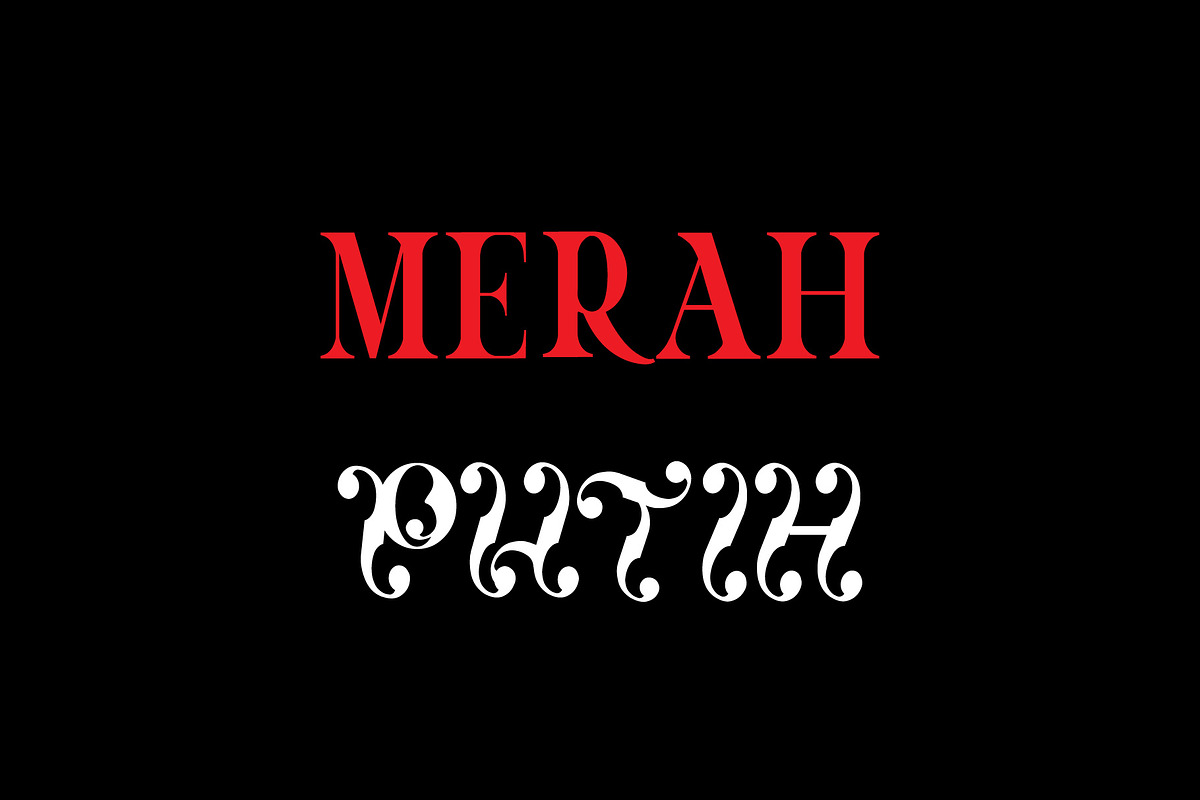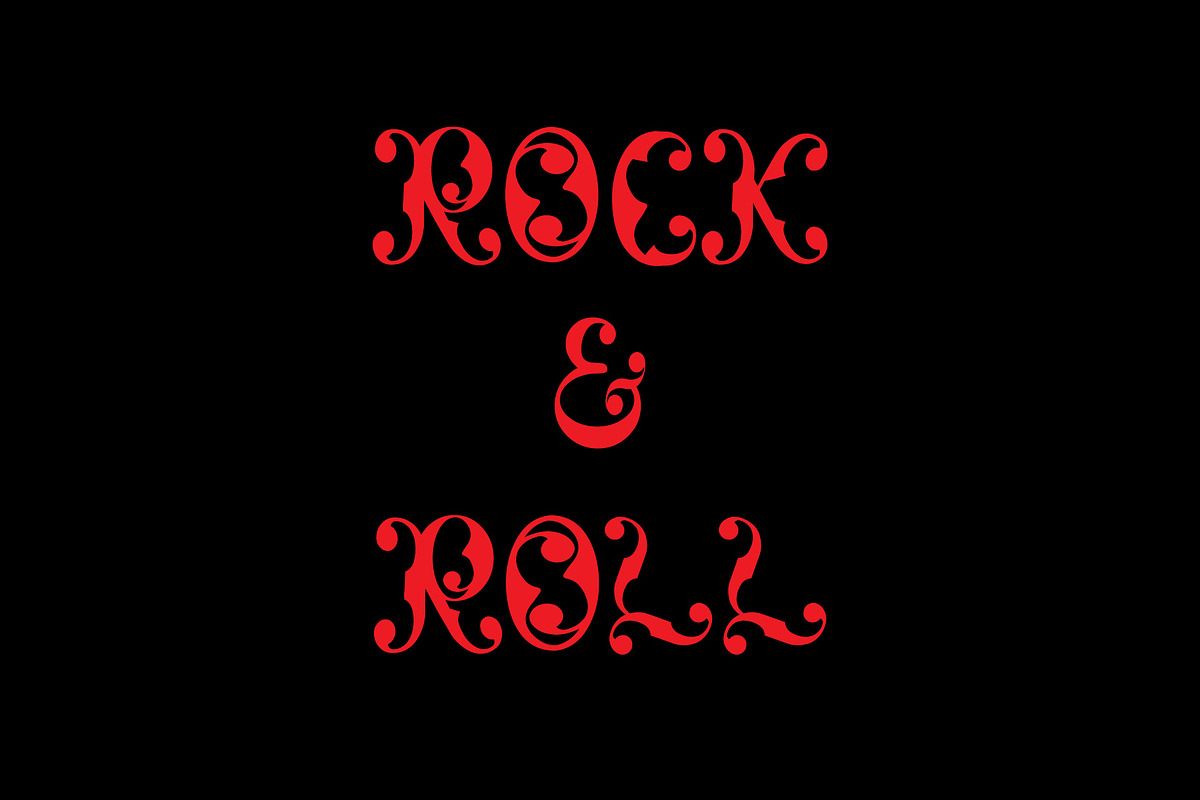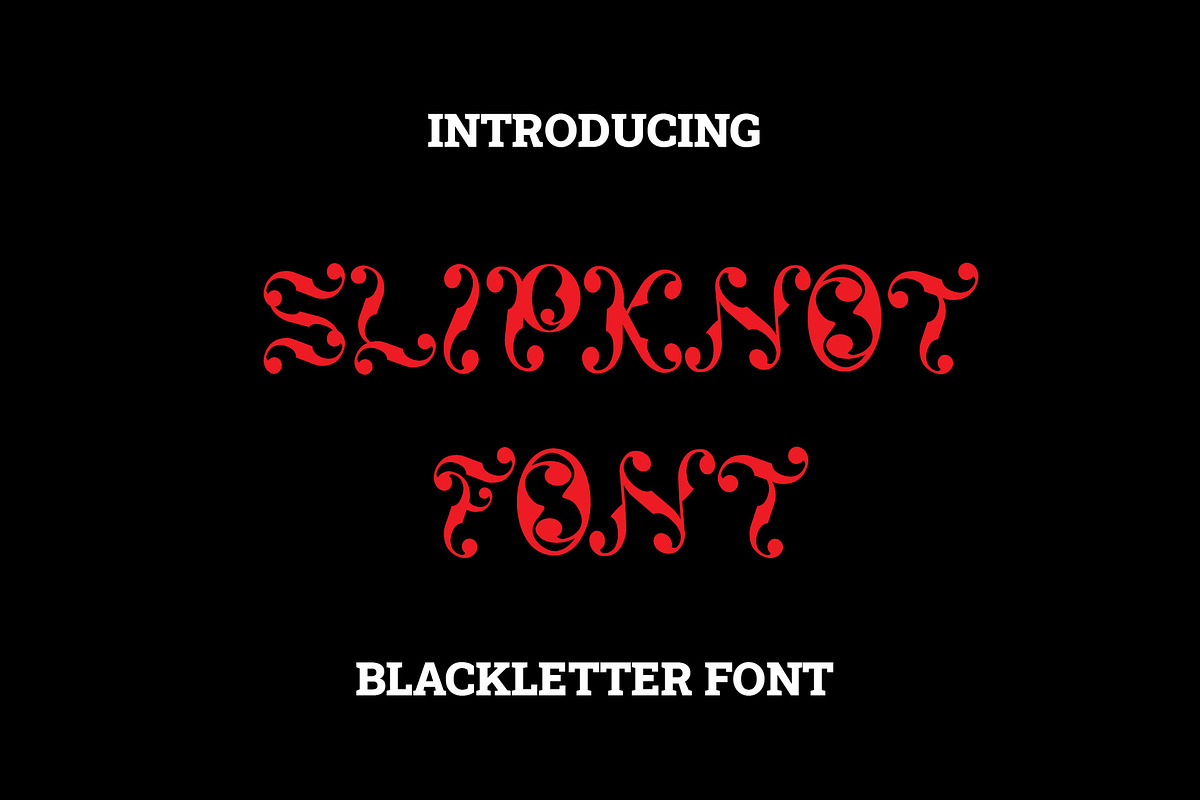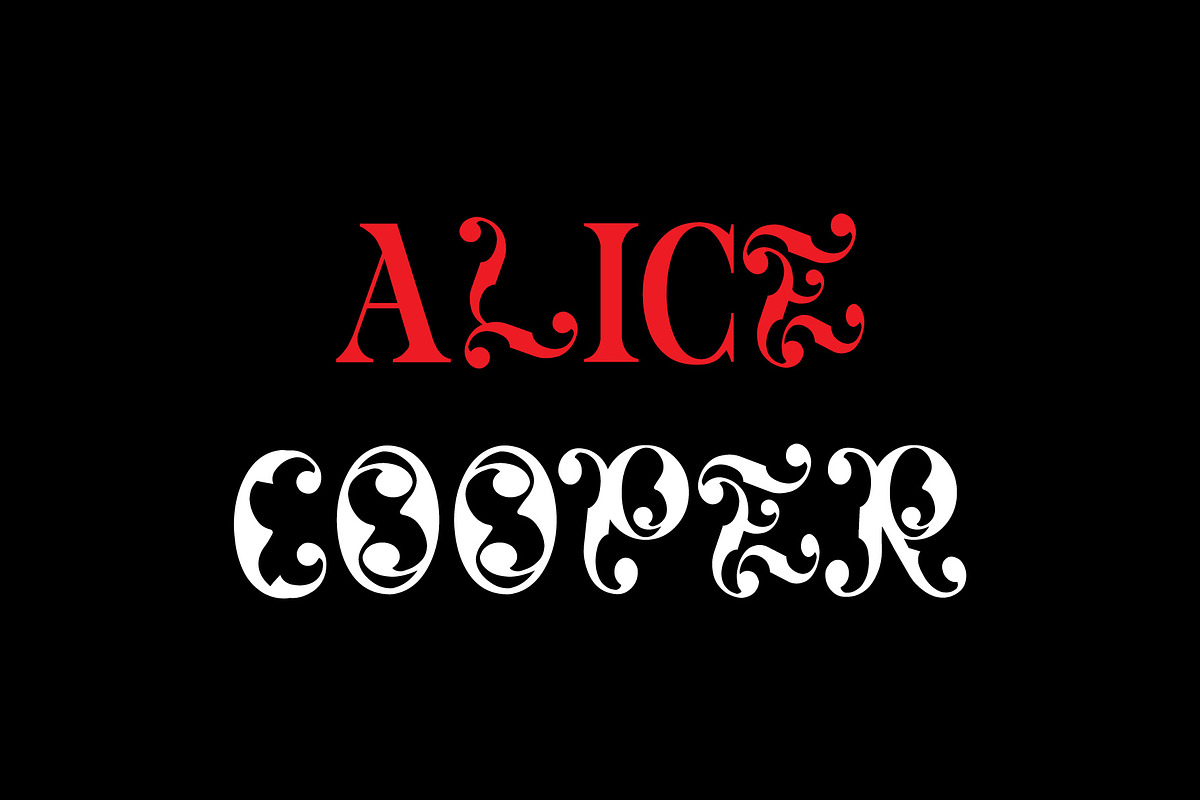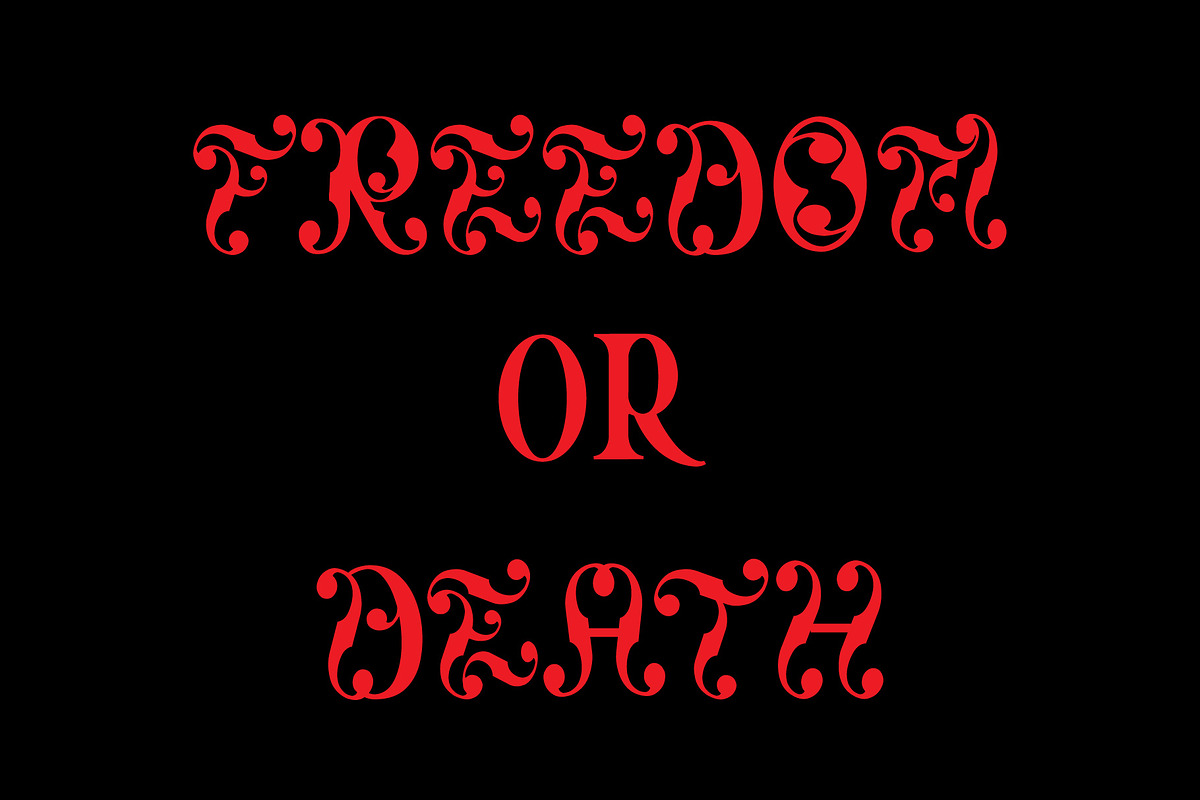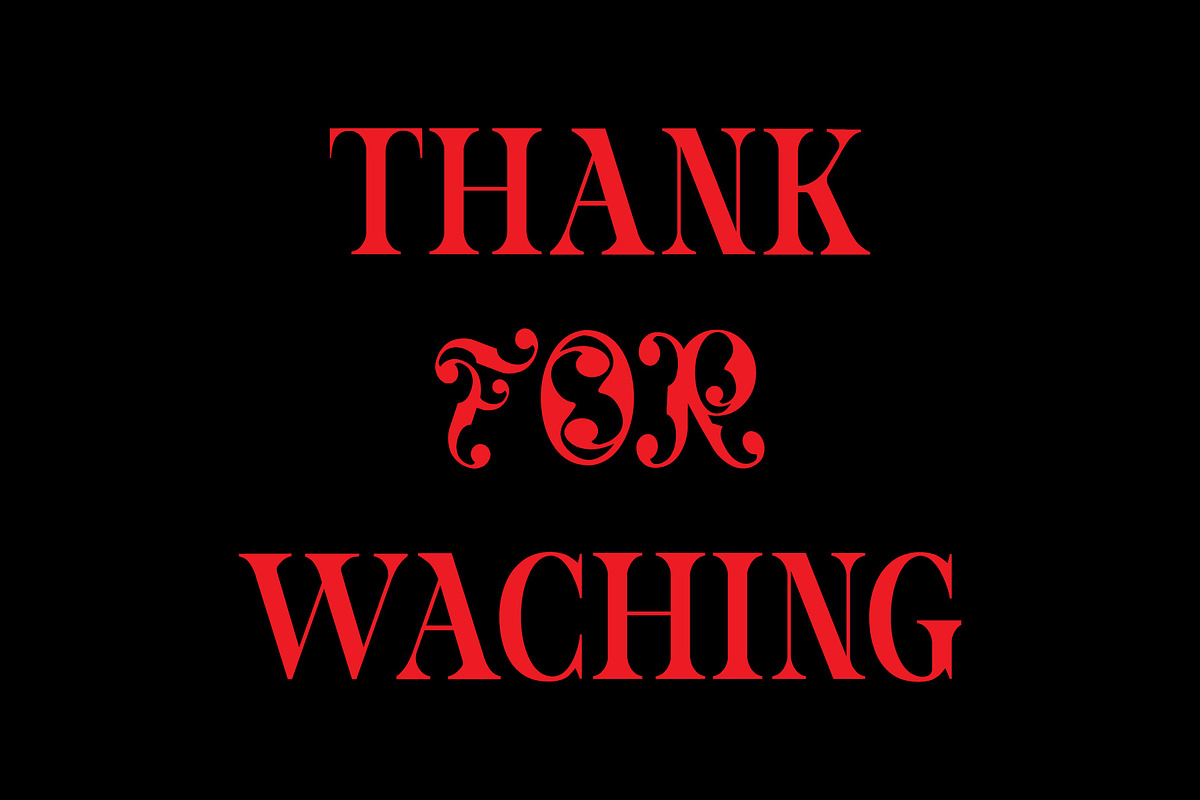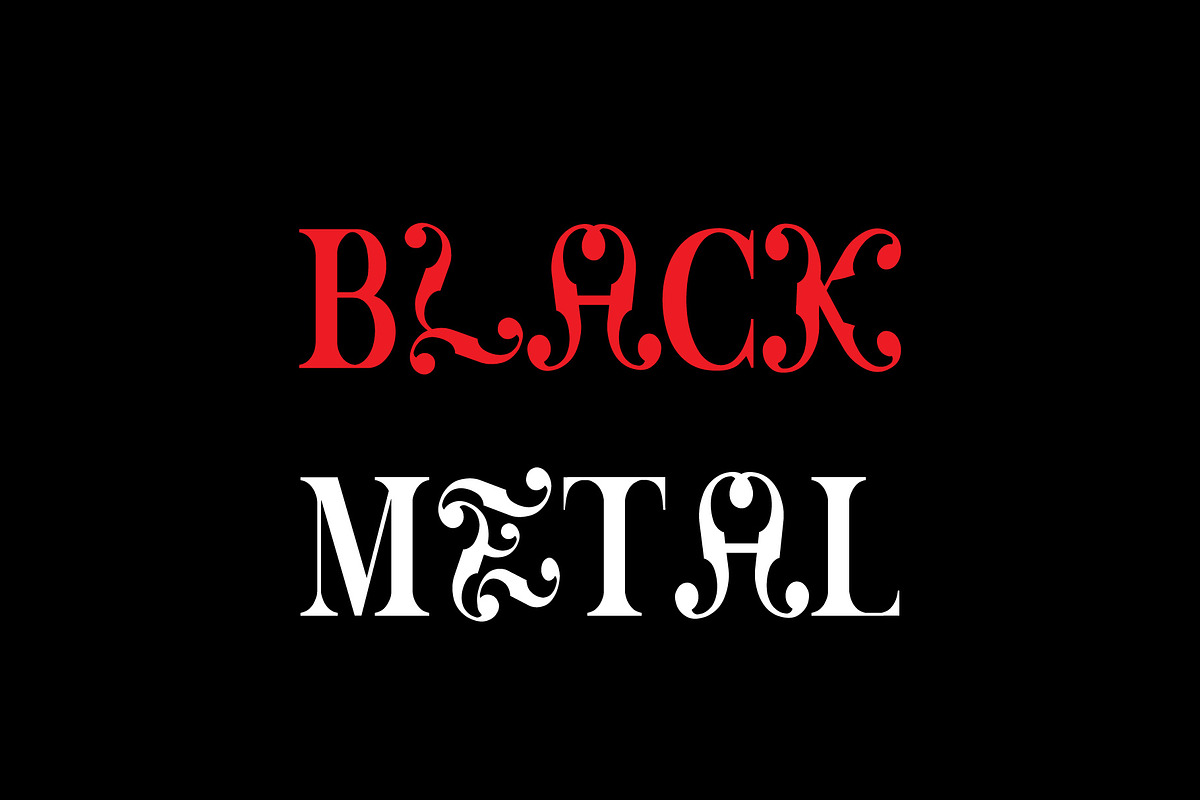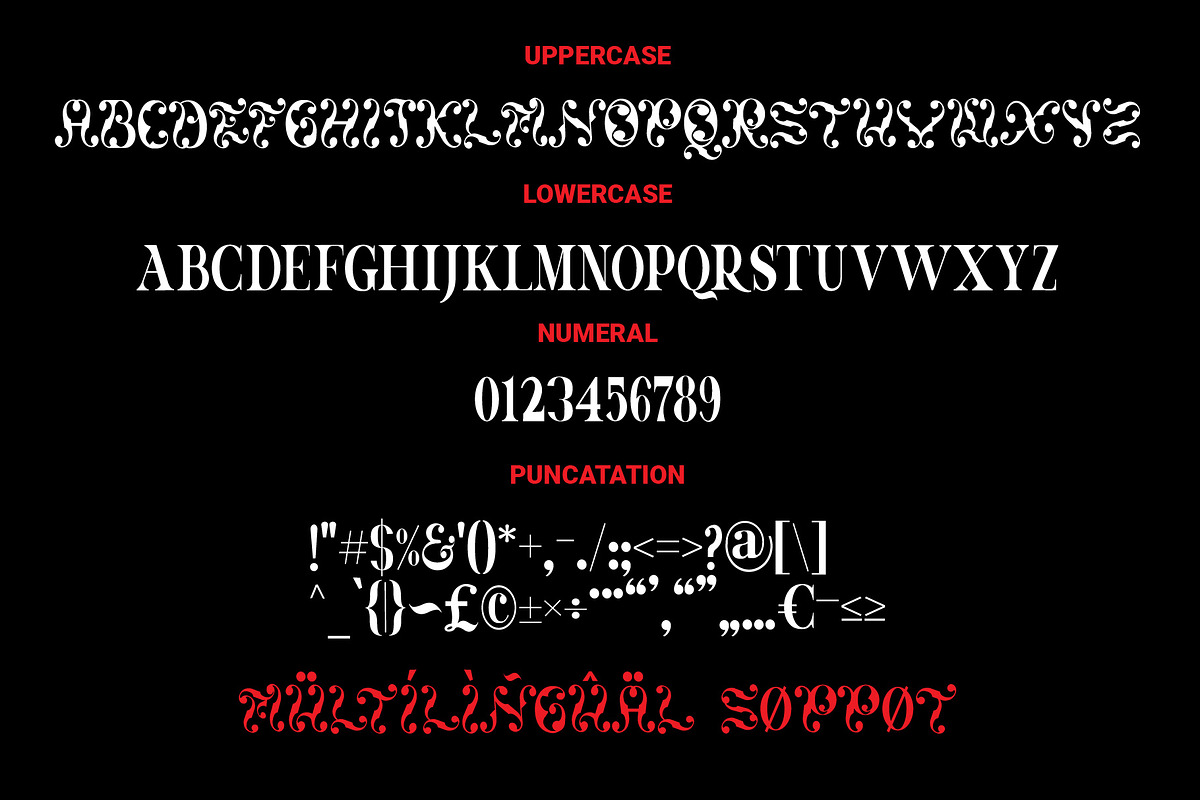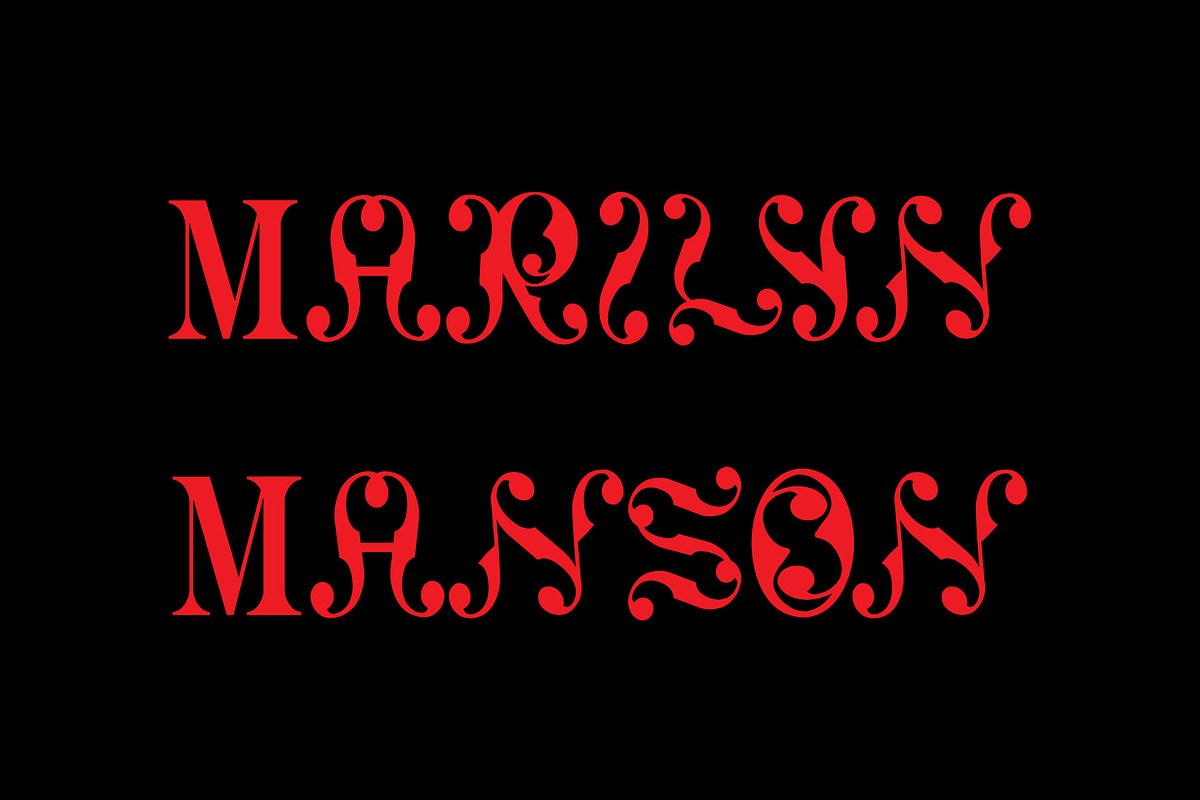
Slipknot
slipknot is a type of blackletter font made with a combination of standard letters and carved letters so it looks more elegant Ott and Otf files, this font is suitable for screen printing designers for clothes, cassettes, posters or others